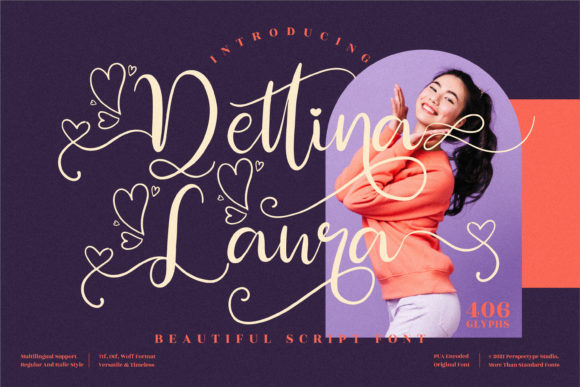
Introducing Dettina Laura Font: The Ultimate Calligraphy Typeface for Luxurious Designs
Are you looking for a font that can add a touch of romance and sweetness to your design projects? Look no further than Dettina Laura Font, a stunning calligraphy typeface that is sure to elevate your designs to the next level. With its unique and elegant characters that dance along the baseline, Dettina Laura is the perfect choice for anyone looking to add a luxury spark to their work.
What is Dettina Laura Font?
Dettina Laura Font is a romantic and sweet calligraphy typeface that is designed to make your design projects stand out. Its beautiful and flowing characters are carefully crafted to create a sense of movement and elegance, making it perfect for a wide range of design applications, from wedding invitations and branding to packaging and advertising.
Key Features of Dettina Laura Font
So, what makes Dettina Laura Font so special? Here are just a few of its key features:
- Romantic and Sweet Design: Dettina Laura Font is designed to be romantic and sweet, making it perfect for designs that require a touch of elegance and sophistication.
- Calligraphy Typeface: This font is a true calligraphy typeface, with characters that are carefully crafted to create a sense of movement and fluidity.
- Luxury Spark: With its unique and elegant design, Dettina Laura Font is sure to add a luxury spark to any design project.
The Benefits of Using Dettina Laura Font
So, why should you choose Dettina Laura Font for your design projects? Here are just a few of the benefits of using this amazing font:
- Elegance and Sophistication: Dettina Laura Font is designed to add a touch of elegance and sophistication to your designs, making it perfect for high-end branding and advertising.
- Versatility: This font is versatile and can be used for a wide range of design applications, from wedding invitations and packaging to advertising and marketing materials.
- Unique Design: Dettina Laura Font has a unique and elegant design that is sure to make your designs stand out from the crowd.
- What is Dettina Laura Font? Dettina Laura Font is a romantic and sweet calligraphy typeface with characters that dance along the baseline.